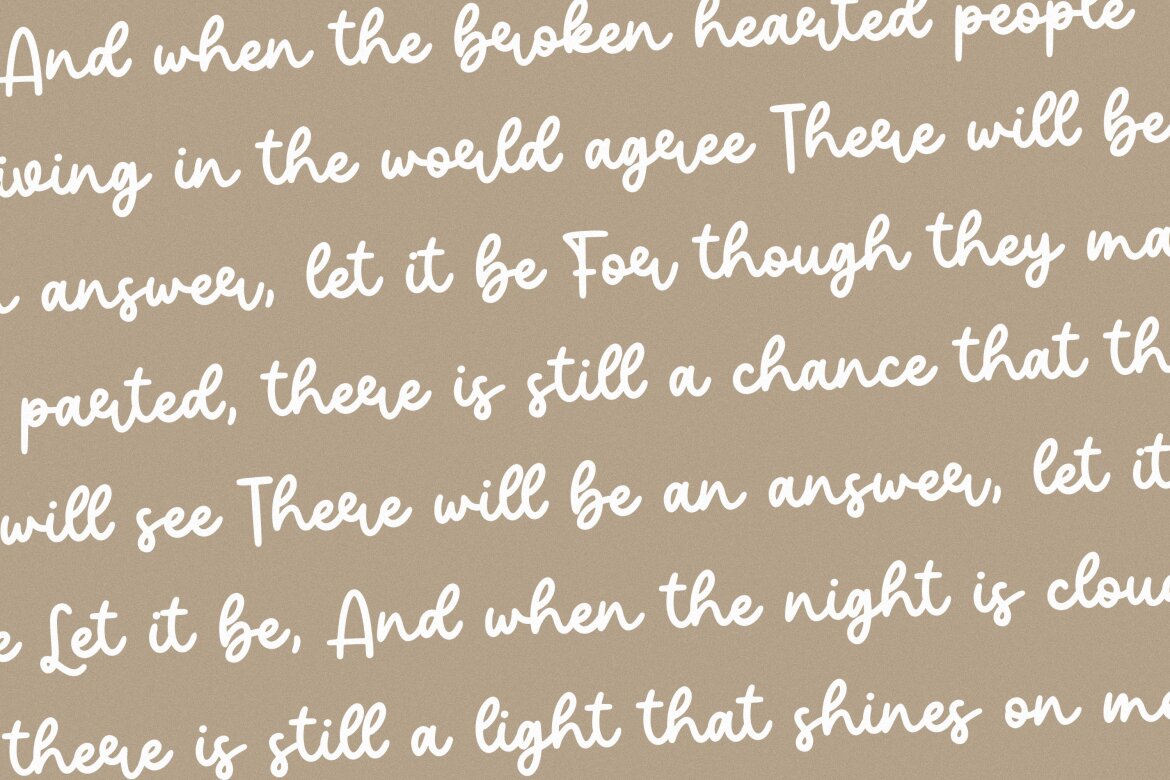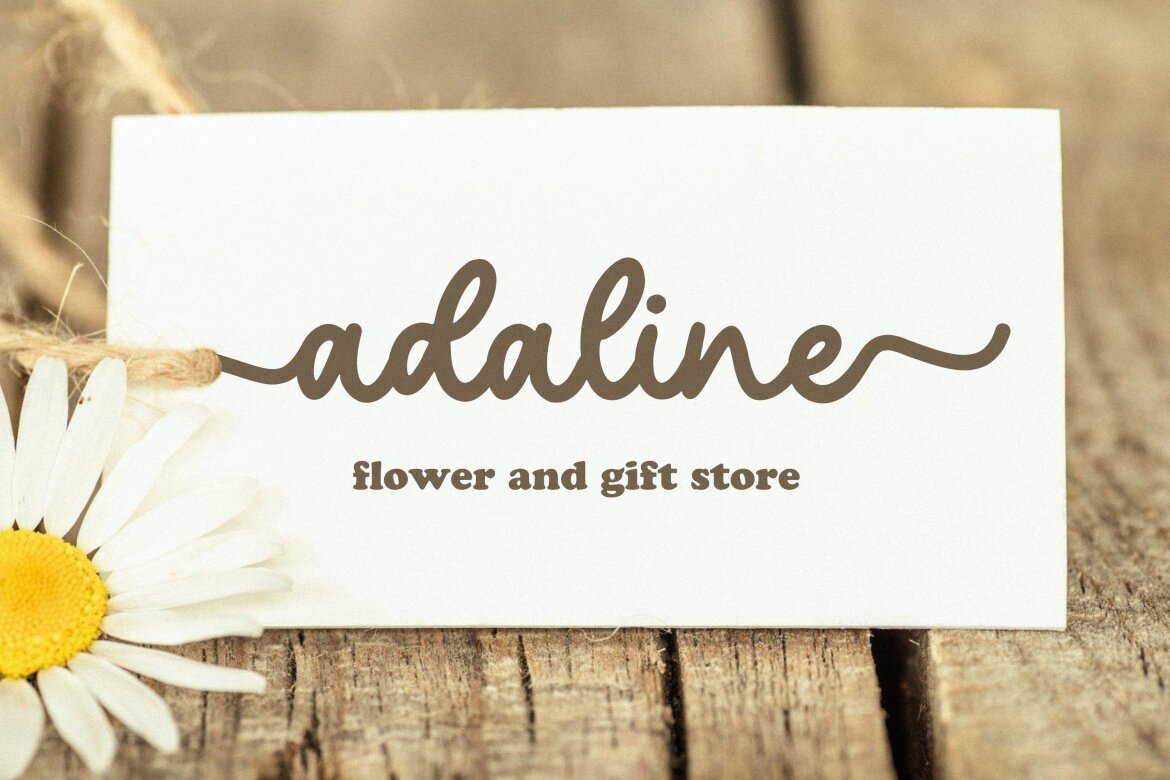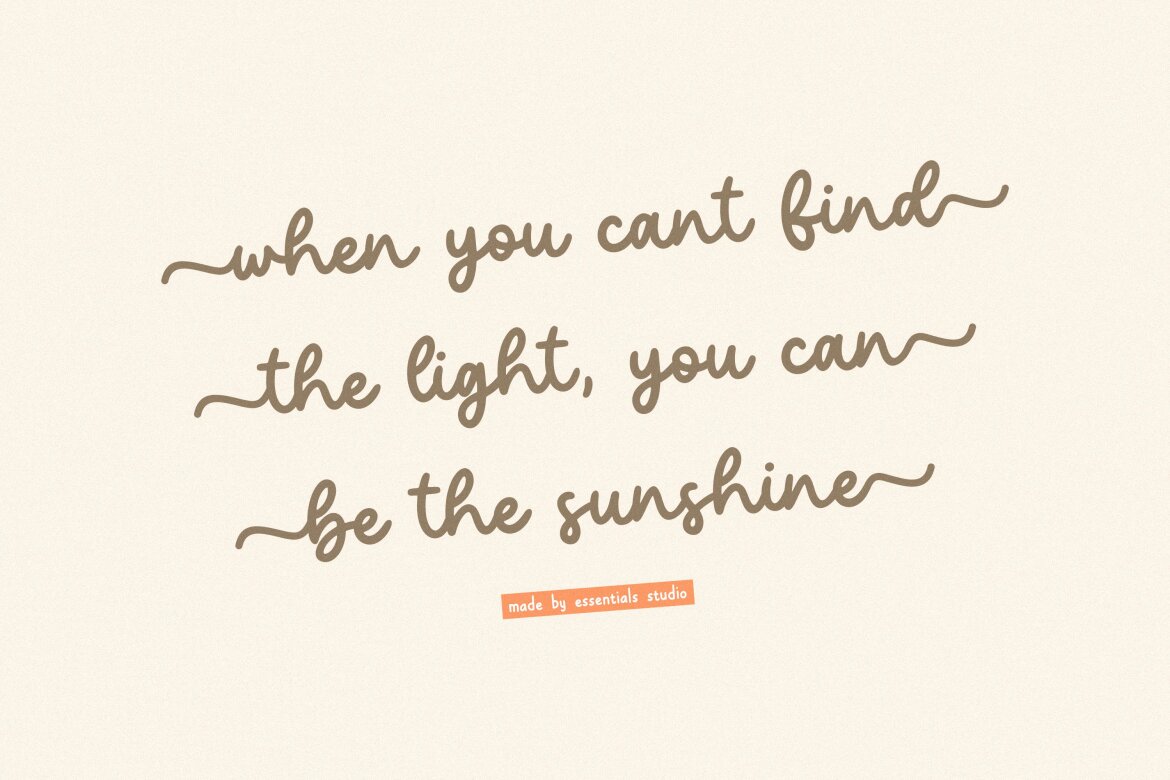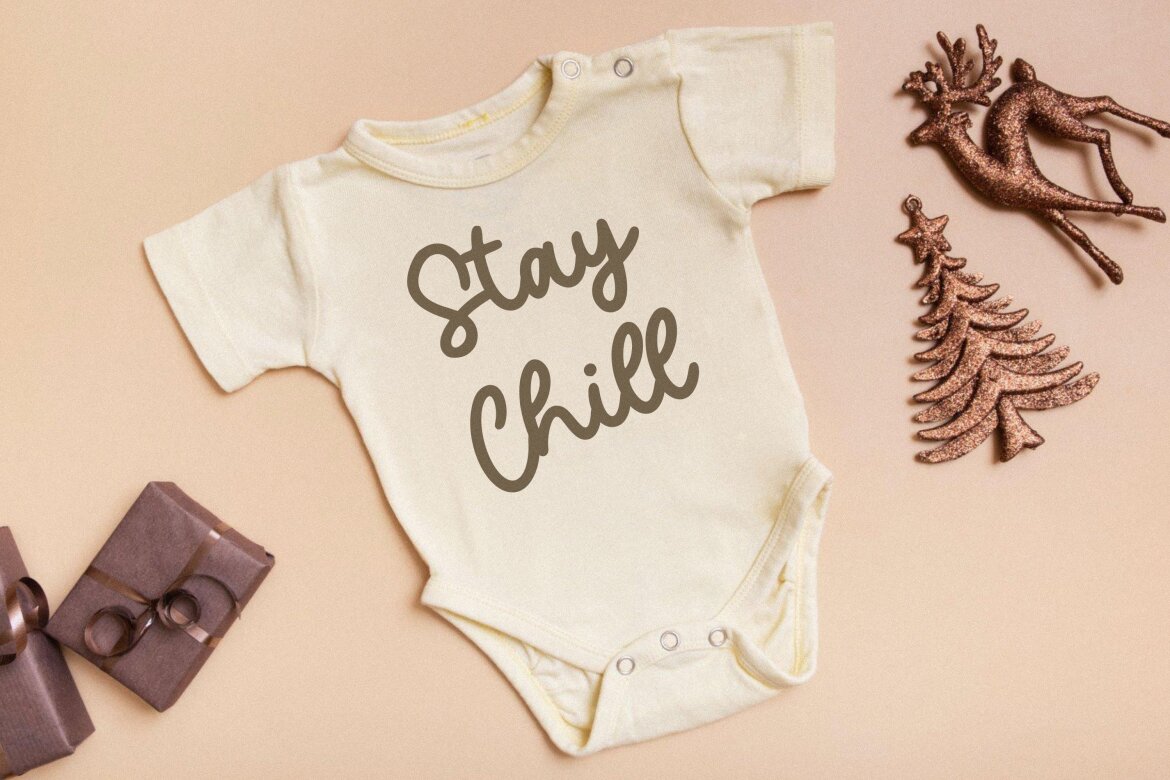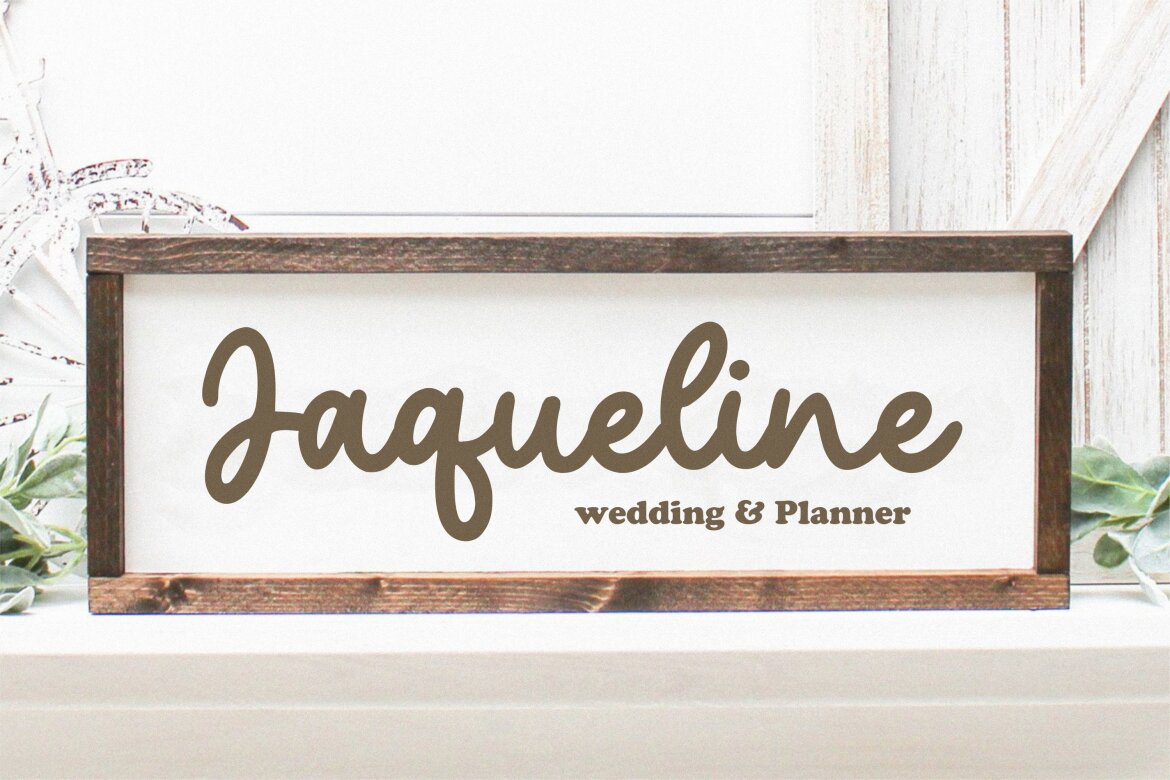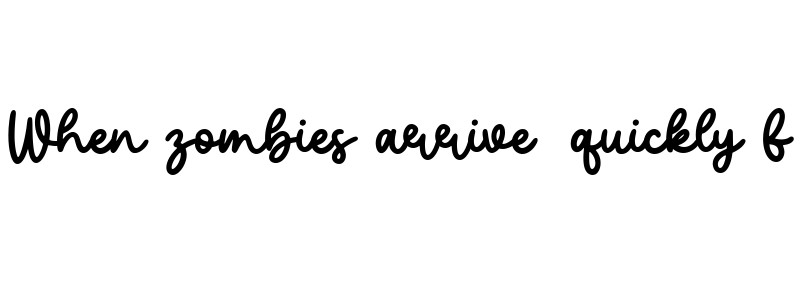
Lemonylac Demo FREE Font
Lemonylac
Lemonylac Is a modern monoline font. Lemonylac is perfect for product packaging, branding project, magazines, social media, weddings, or just used to express words above the background.